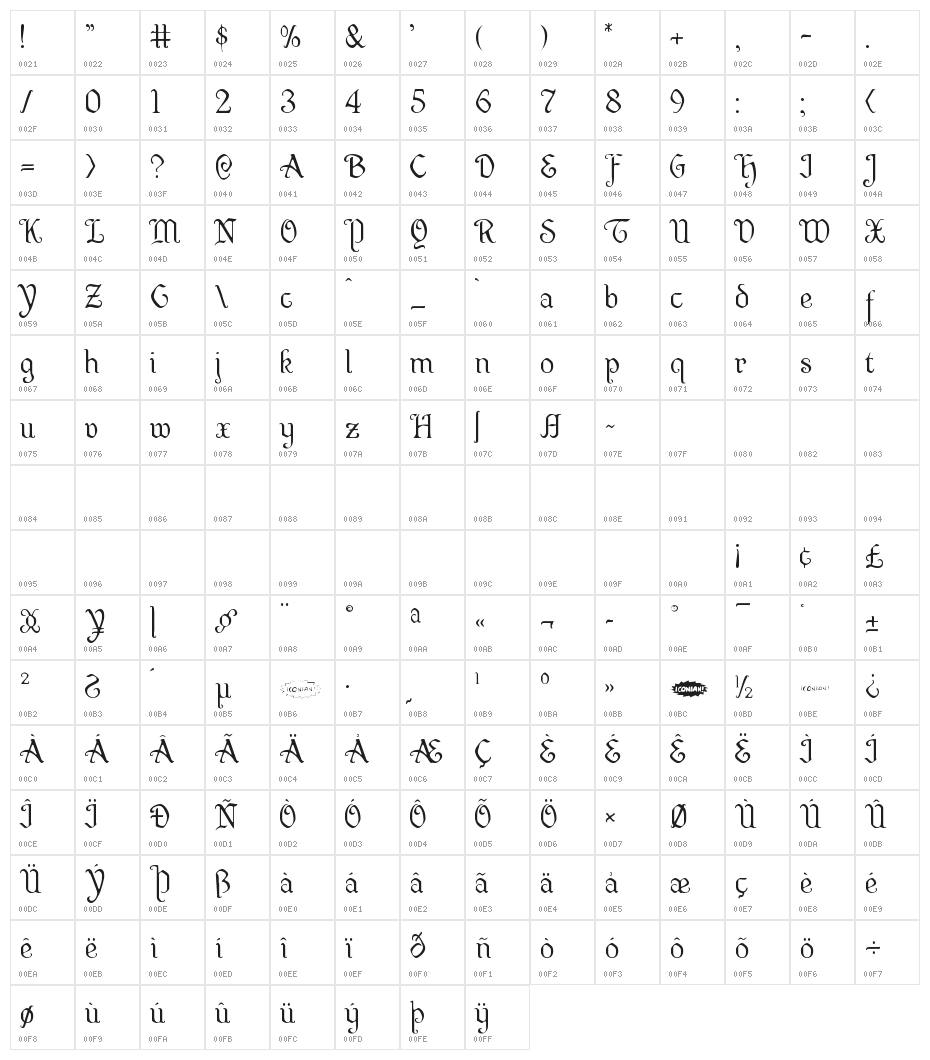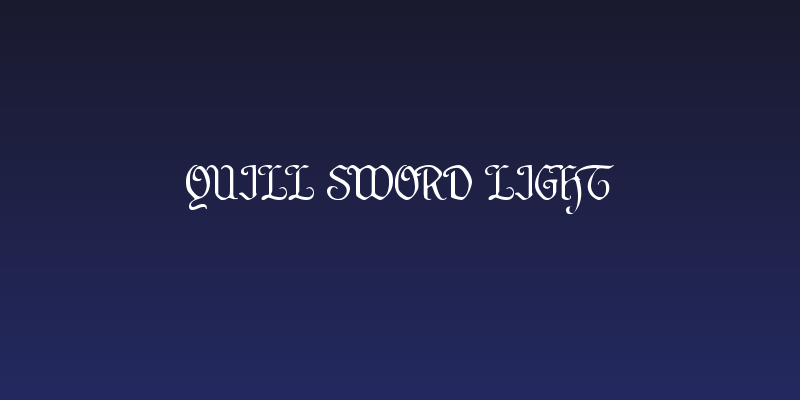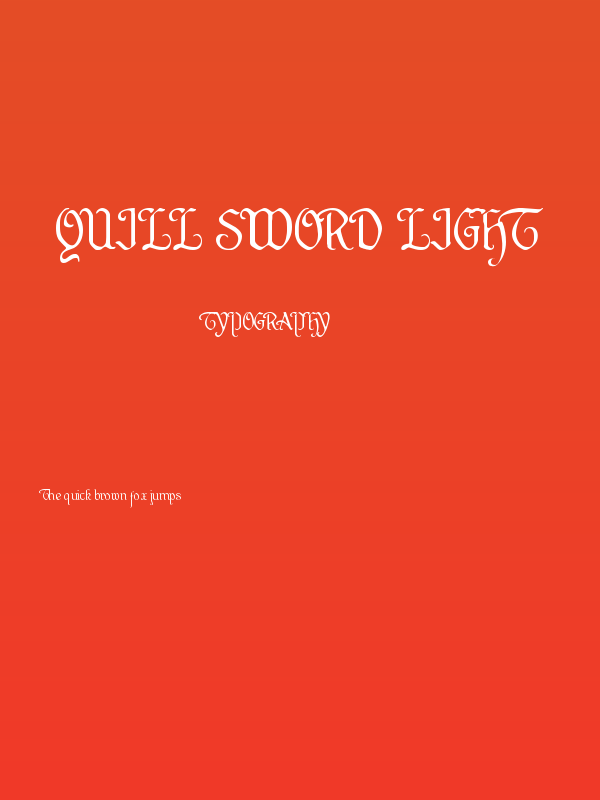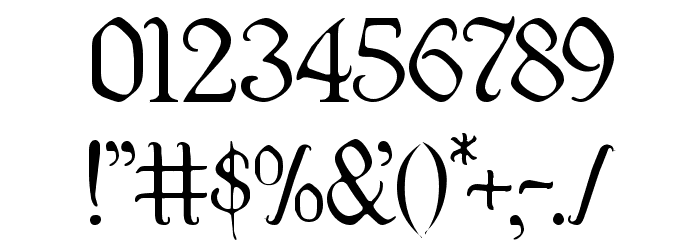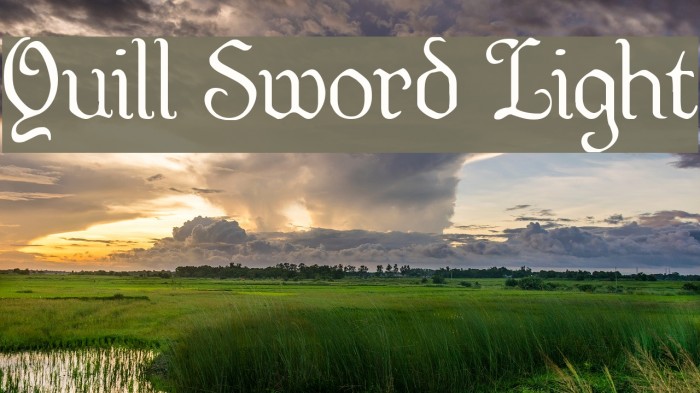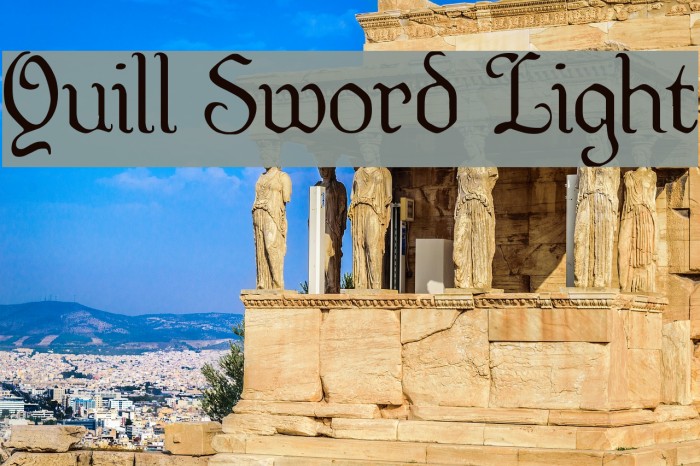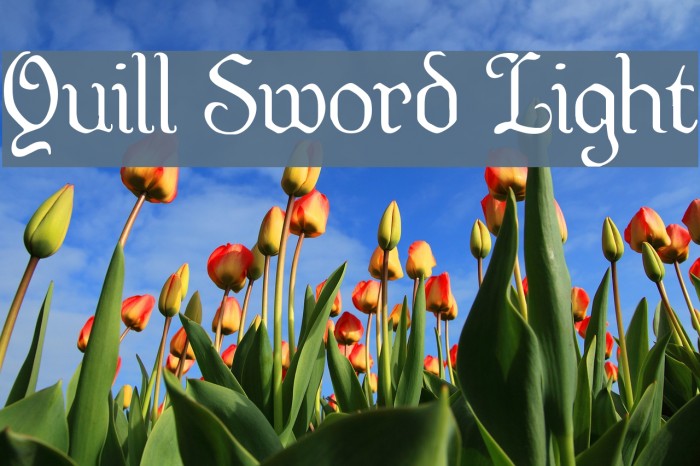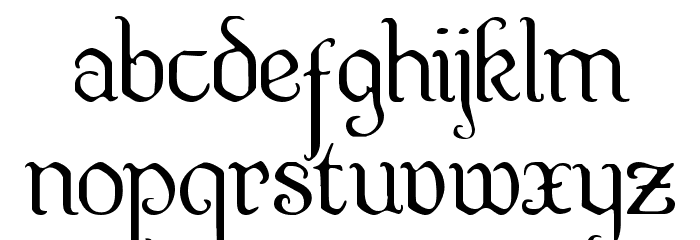
Quill Sword Light Font
Quill Sword Light Description
This font features a distinct medieval and calligraphic style, characterized by its ornate and decorative letterforms. The uppercase letters exhibit a strong presence with intricate curves and flourishes, while the lowercase letters maintain a consistent style with slightly less embellishment. The numerals are bold and clear, matching the overall aesthetic. Special characters are designed with the same attention to detail, ensuring a cohesive look throughout. The font's unique style evokes a sense of history and tradition, making it suitable for projects that require a touch of elegance and sophistication.
| Proposed Projects | Ideal for invitations, historical-themed designs, book covers, and branding projects that require a classic and elegant touch. |